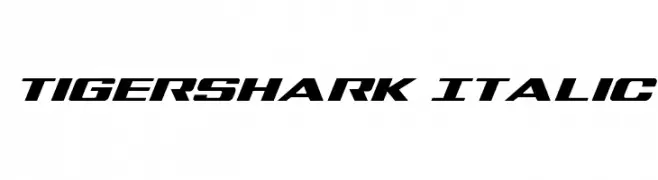
A bold, expanded font with a modern and futuristic style.
A bold, expanded italic font with a sleek, modern design.
A bold, extra-condensed font with geometric, modern design.
A bold, extra-condensed italic font with a dynamic and modern style.
A modern, italic font with a striped gradient effect, exuding energy and motion.
A bold, modern font with a unique horizontal striped pattern.
A bold, italicized font with a dynamic and angular design.
A dynamic, italic font with sharp, angular edges and a futuristic style.
A bold, futuristic font with angular edges and a geometric structure.
A bold, left-slanted font with a futuristic and dynamic style.